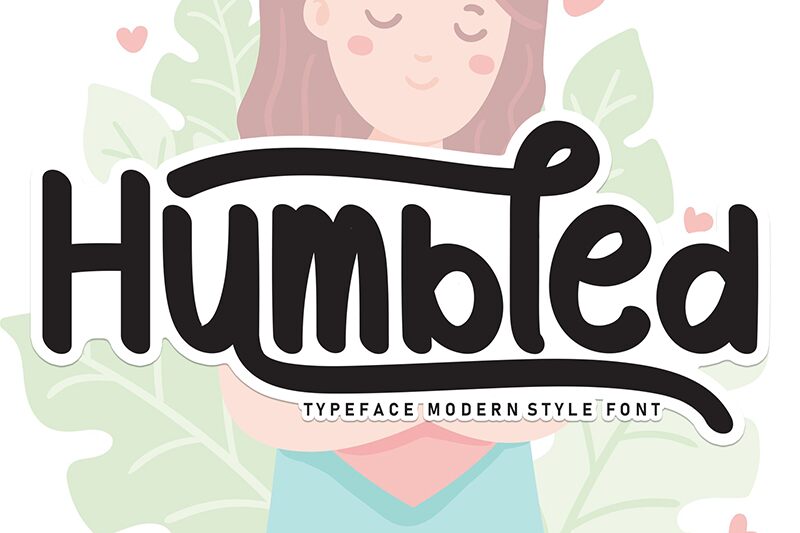
Humbled
Humbled font is a free brush display font designed by Andi Moaz. Its highly organic letters have rounded ends and visible edge imperfections that give off a warm welcoming feeling. With a clear retro-inspired style; the typeface possesses casual elegance, confidence, superb versatility, friendly modernity, and drama.
Potential projects where Humbled would be of great use are titles, headings, web banners, social media posts or cover art. It’s also great for apparel design for t-shirts and jackets and even fashion magazine publications. Great packaging ideas include cereal boxes and cosmetic product bottles like shampoo or facial cleansers.